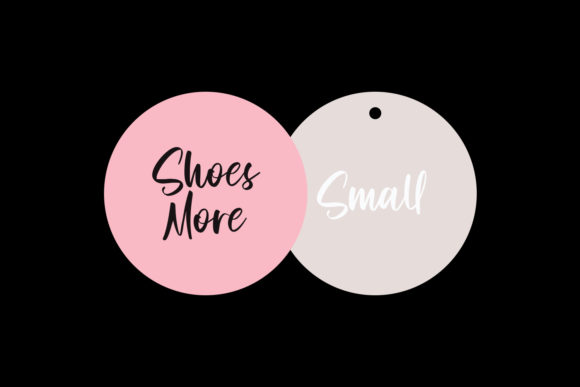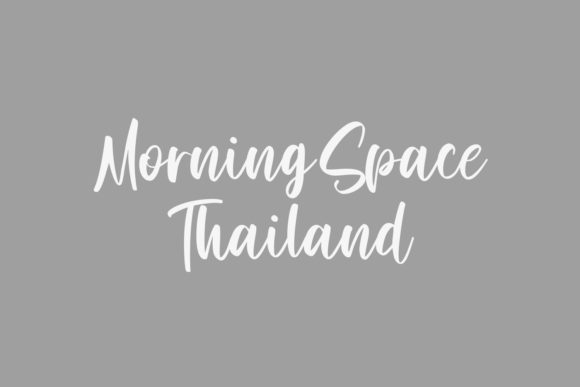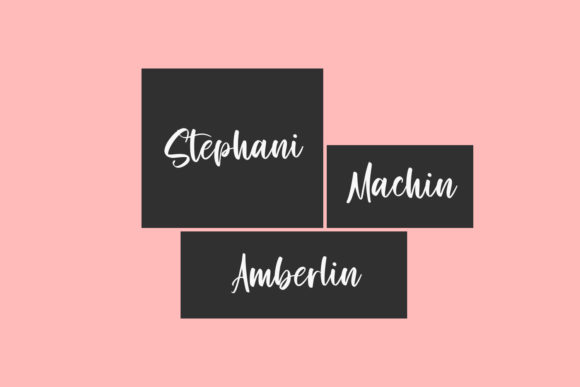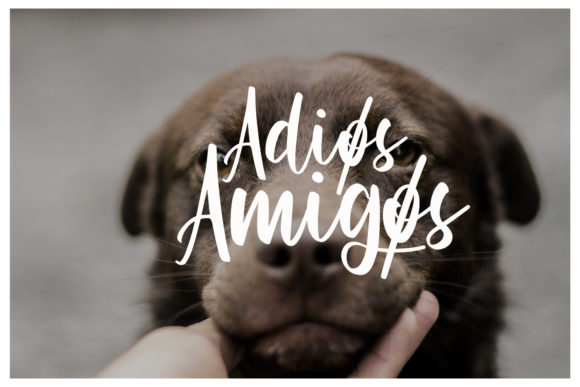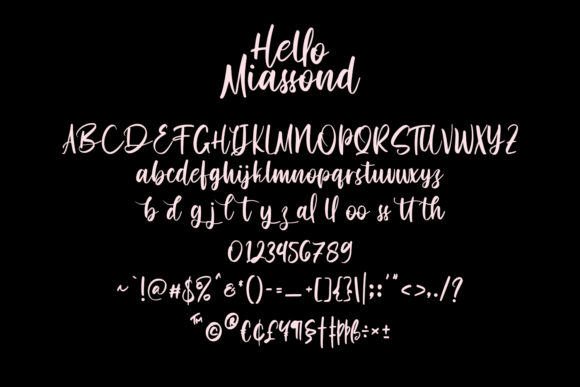
Introduction to Hello Miassond Font
Hello Miassond is inspired by classic typography and brings its own unique style to any design project.
It features an incredibly classic style, while still keeping a friendly feel Hello Miassond is the perfect font for making original and outstanding designs.